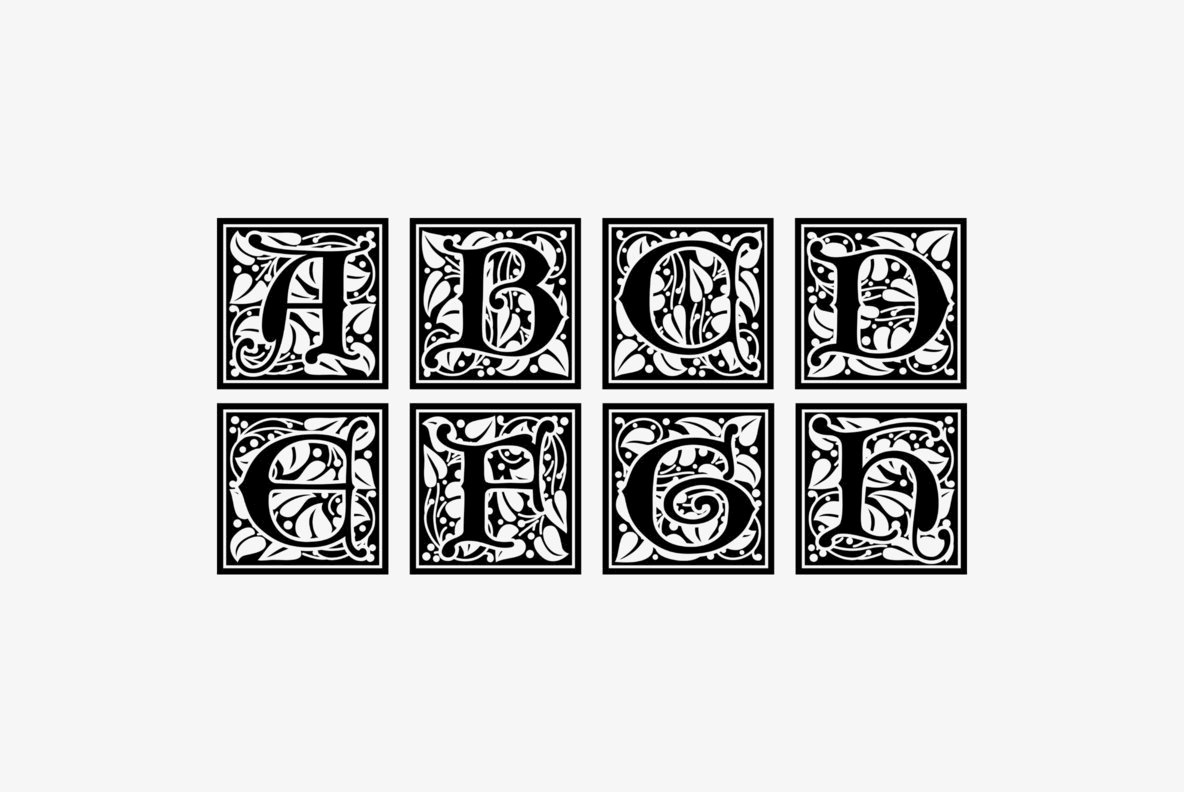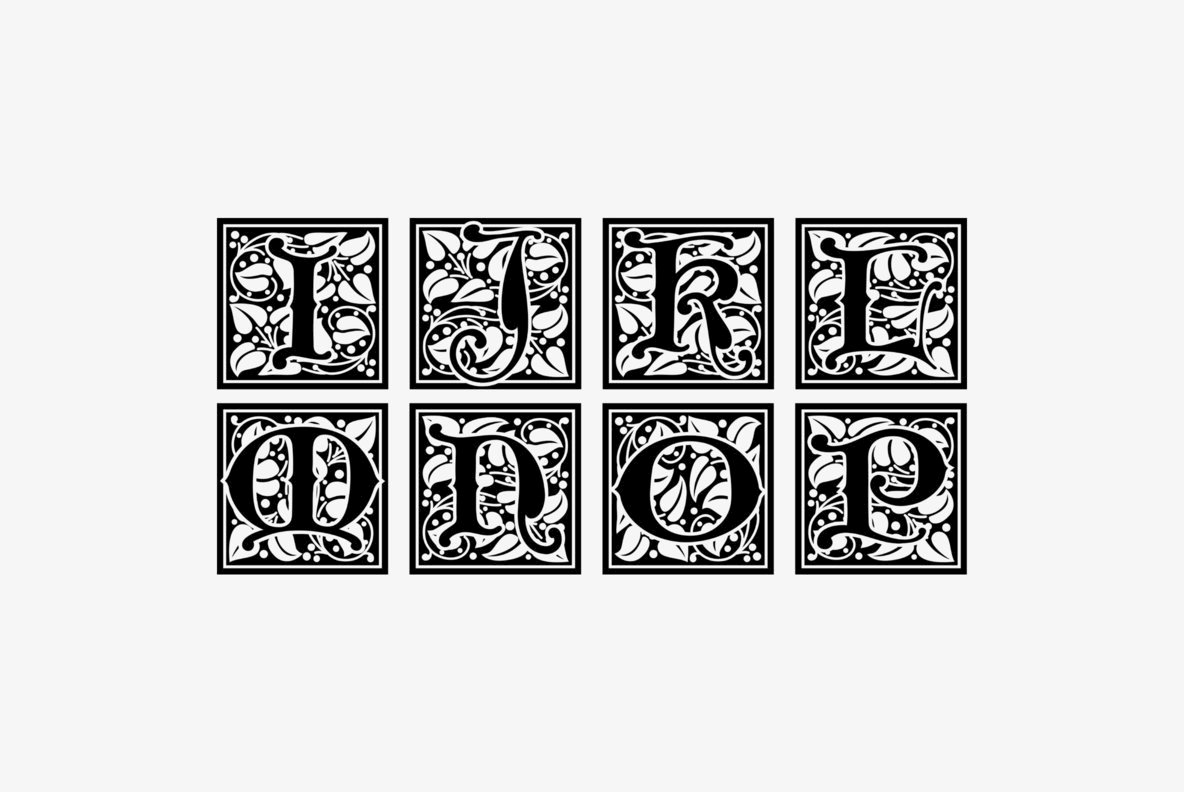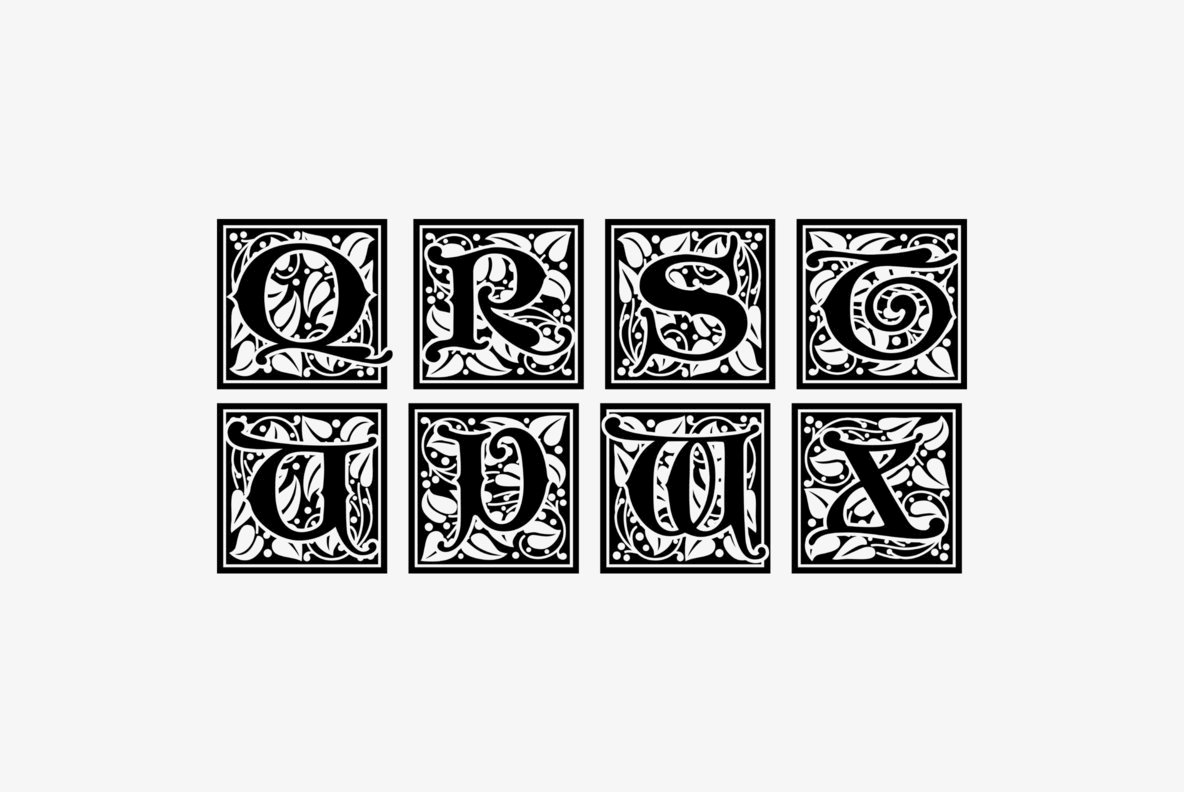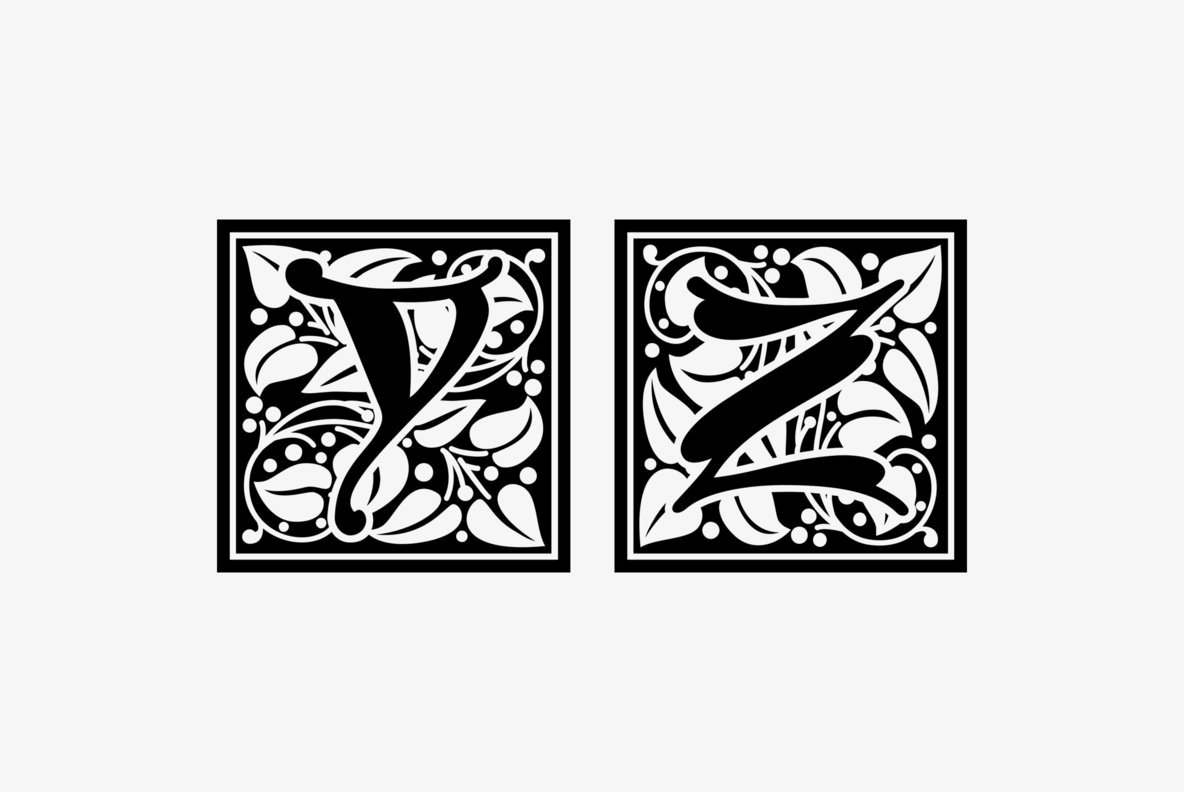
Ornate Initials Font
Ornate Initials Style One
Ornate Initials Style Three
Ornate Initials Style Two
Ornate Initials Style One is composed of a floral ornament rotated and reflected at 90 degree increments combined with a letter or number to form each ornate initial. The initials are A through Z and 1 through 0 for a total of 36 initials. Each initial is located under its respective key in the character set.
Ornate Initials Style Two is composed of floral ornaments rotated and reflected at 90 degree increments combined with a letter to form each ornate initial. There are two sets of initials A through Z. Under the character set the initials are negative on a positive floral background. Under the shift + character set the initials are positive on a negative floral background. Each initial is located under its respective key.
Ornate Initials Style Three is composed of floral ornaments rotated and reflected at 90 degree increments combined with a letter or number to form each ornate initial. There are two sets of initials A through Z and 0 through 9 for a total of 72 characters. Under the character set the initials are negative on a positive floral background. Under the shift + character set the initials are positive on a negative floral background.. Each initial is located under its respective key.